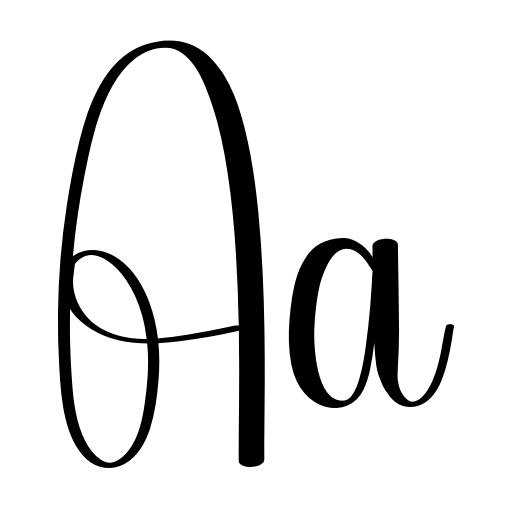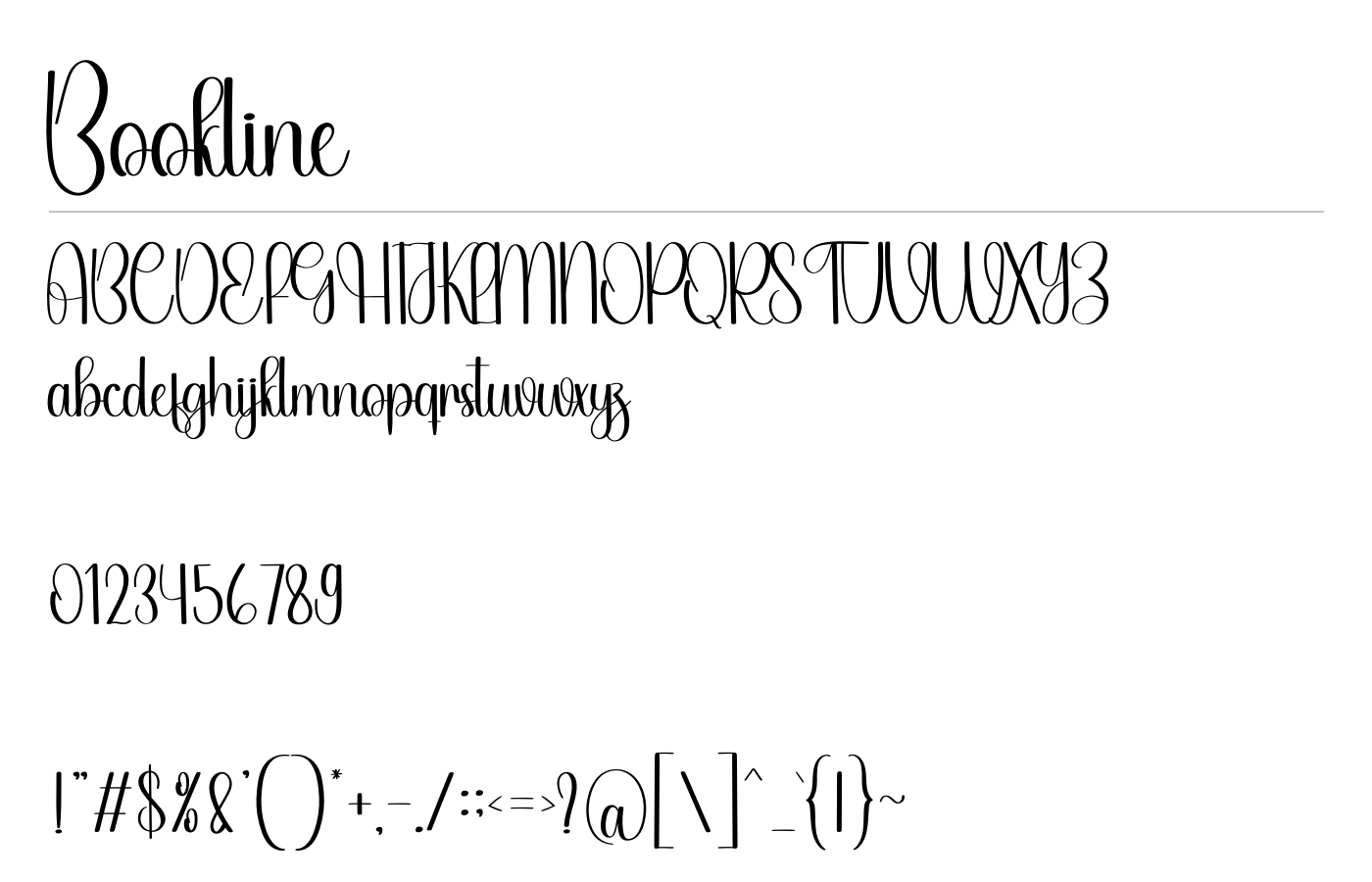
Bookline is a delicate, hand-drawn script font with tall, slender letterforms and elegant swashes that add a playful yet sophisticated touch. Its light weight and narrow width make it perfect for creative headlines, invitations, and branding that seek a charming, whimsical personality. This font works well in stylish, artistic designs where a unique, graceful feel is desired.
About Bookline Font